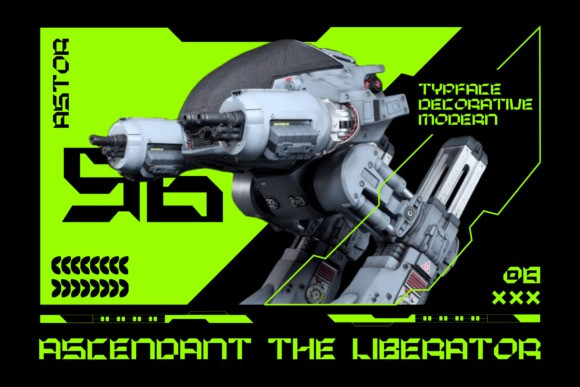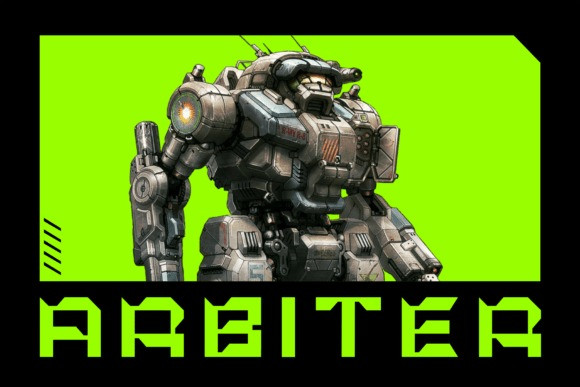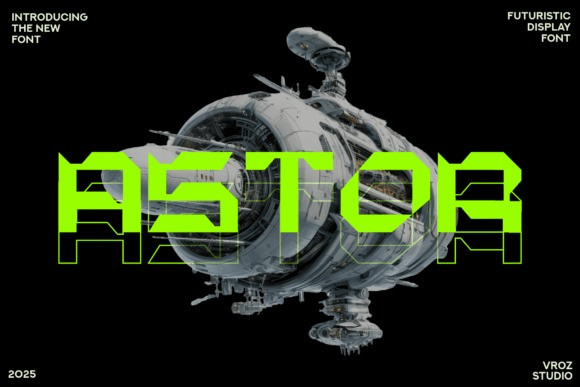
Astor Font
Astor Font, an uncompromising futuristic display font defined by its extreme geometric construction and deconstructed, architectural style.The typeface is characterized by sharp, deliberate angular cuts and a system of integrated horizontal lines that slice through the letters, giving it a technical, schematic aesthetic. The bold, blocky forms create an immense visual presence, perfect for digital screens and large format.
Astor is the quintessential font for sci-fi branding, video game interfaces (UI/HUD), dark electronic music promotion, industrial design, and cyber-punk themed projects. Its powerful, grid-based appearance makes it highly suitable for technical manuals and futuristic motion graphics. Use this unique typeface to convey an atmosphere of advanced technology, military precision, and uncompromising modernity.